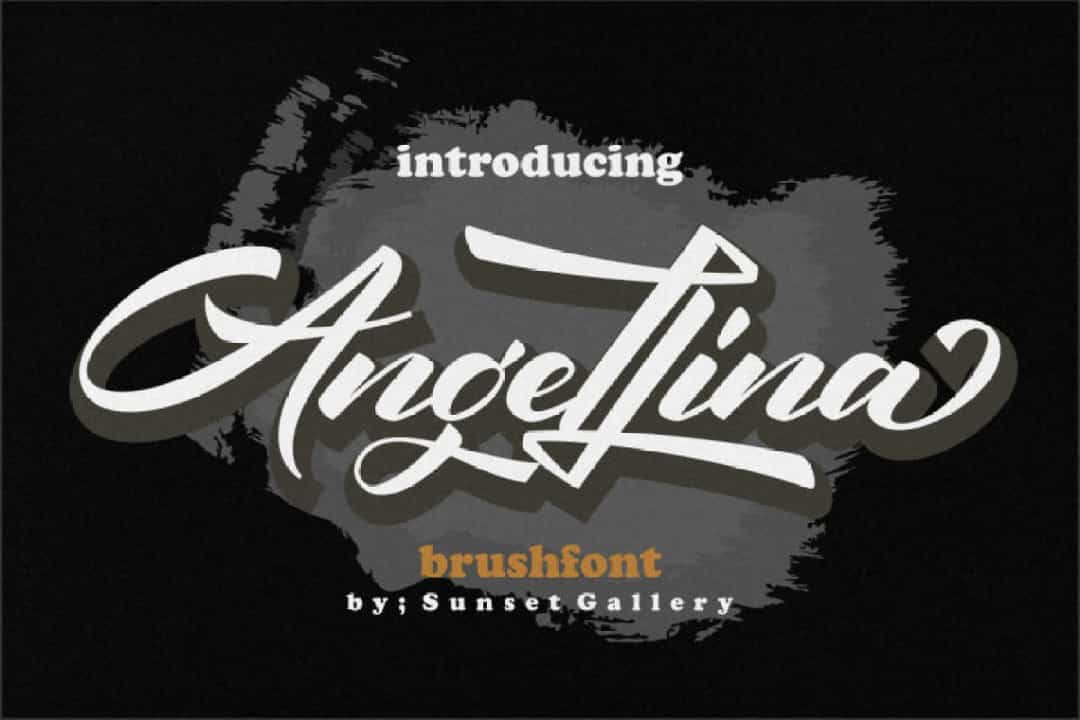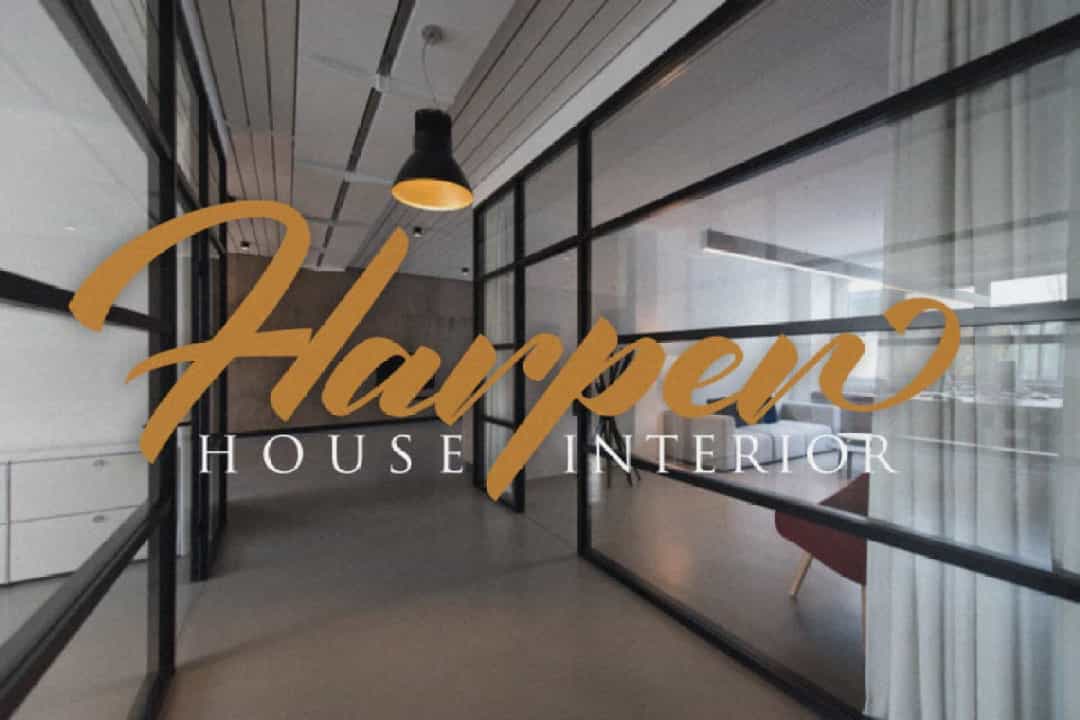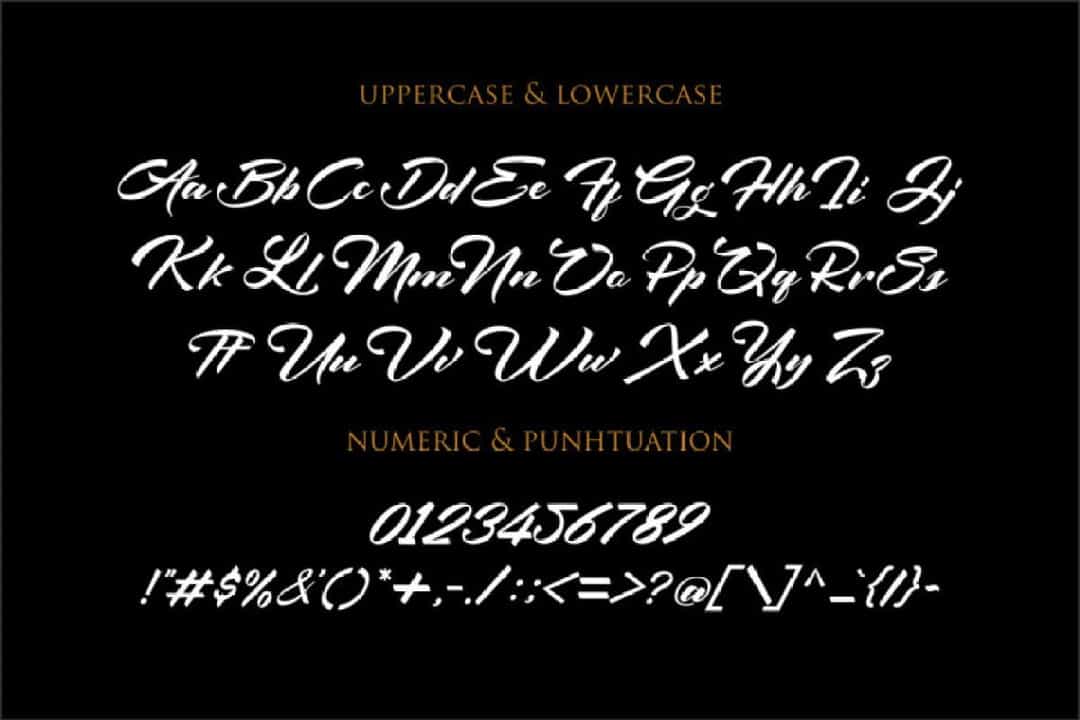
Discover Angellina Brush Font, part of the Brush collection—a versatile and unique font perfect for adding a personal touch to your projects. Download it for free and enjoy crafting designs with style, from invitations to social media posts. This font is available exclusively for personal use, giving you the freedom to create without limits. Unlock your creativity with Angellina Brush Font today!
Angellina Brush Script Font can be described as an elegant and subtle brush script font that exudes sophistication and elegance. Specifically created to meet the demands of those needing elegant yet contemporary designs. Angellina is encoded with PUA meaning easy access to all its glyphs and swashes!